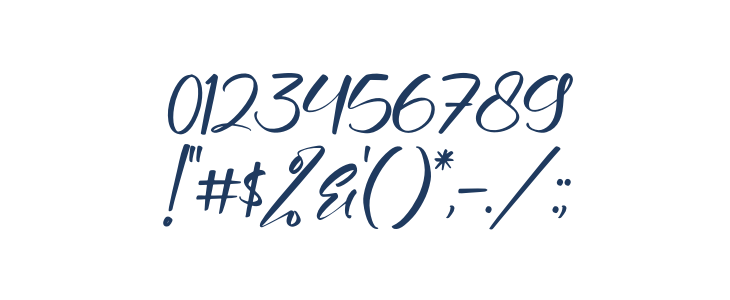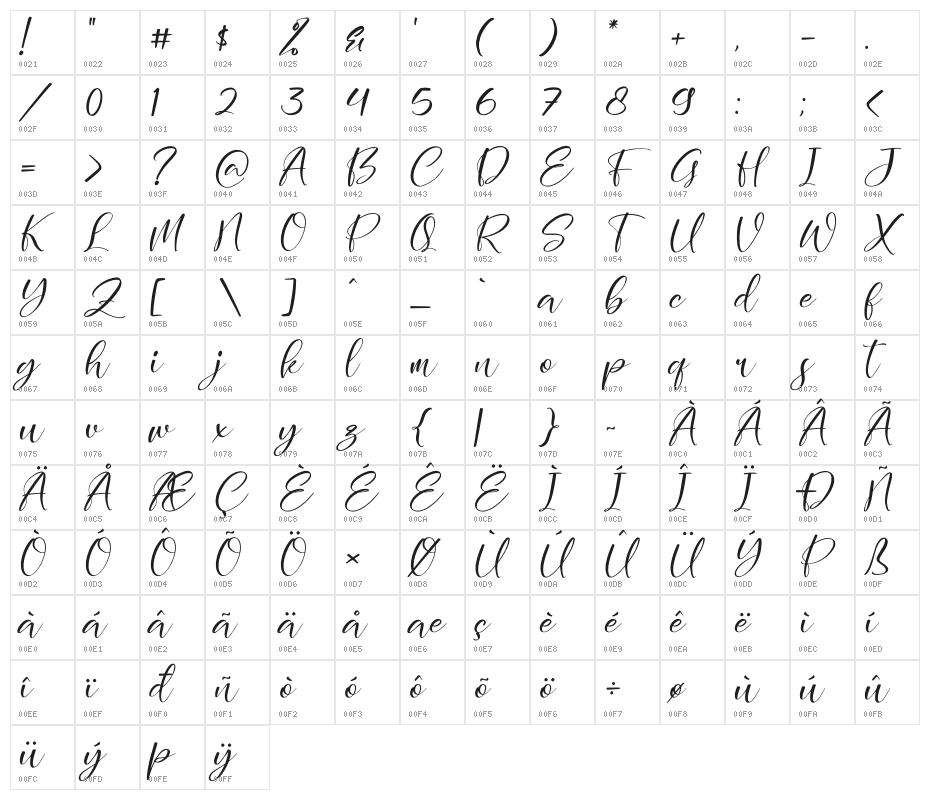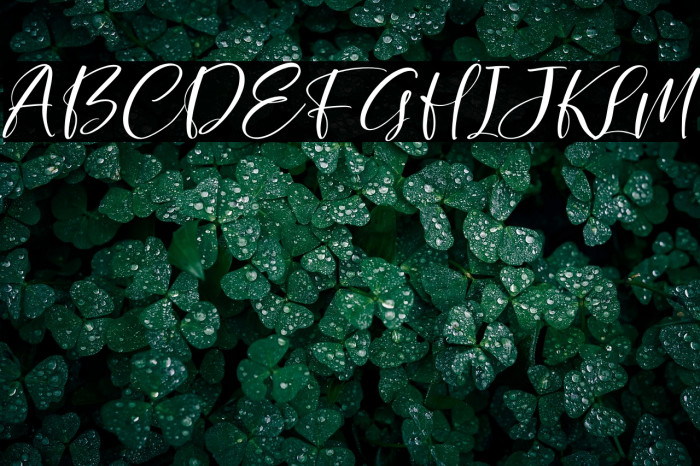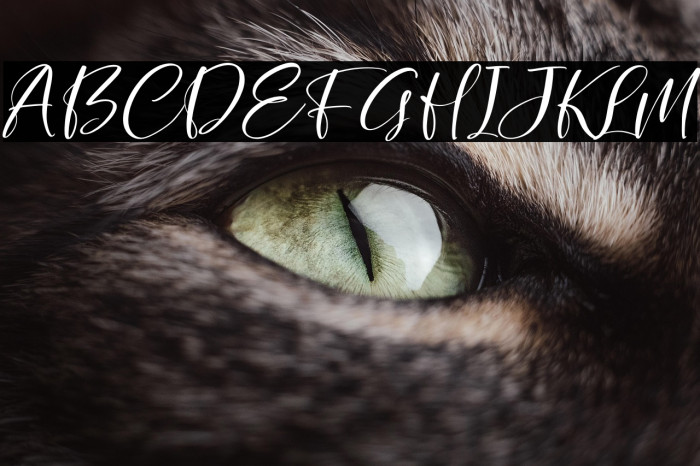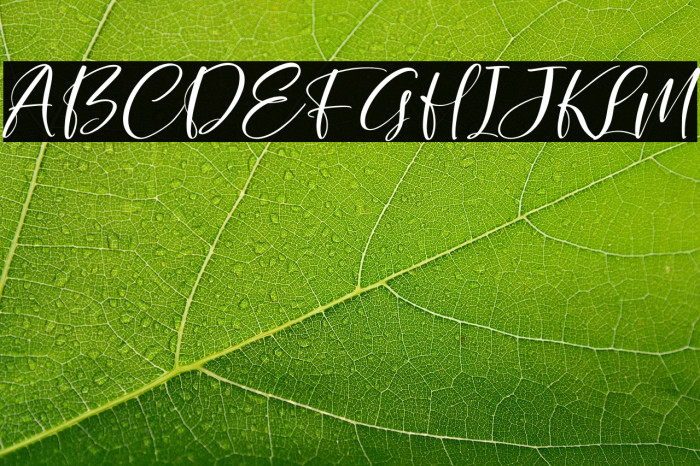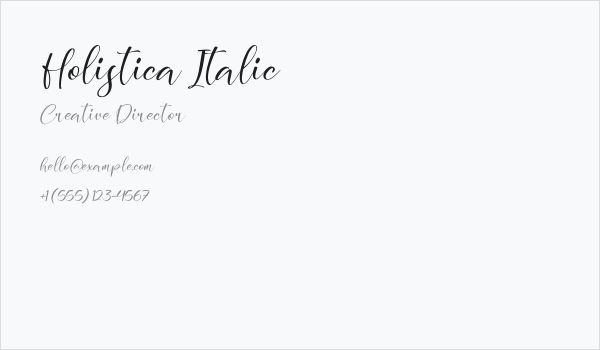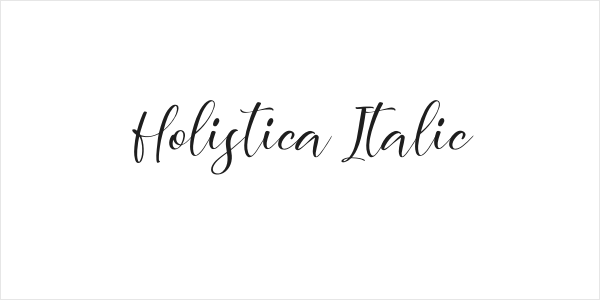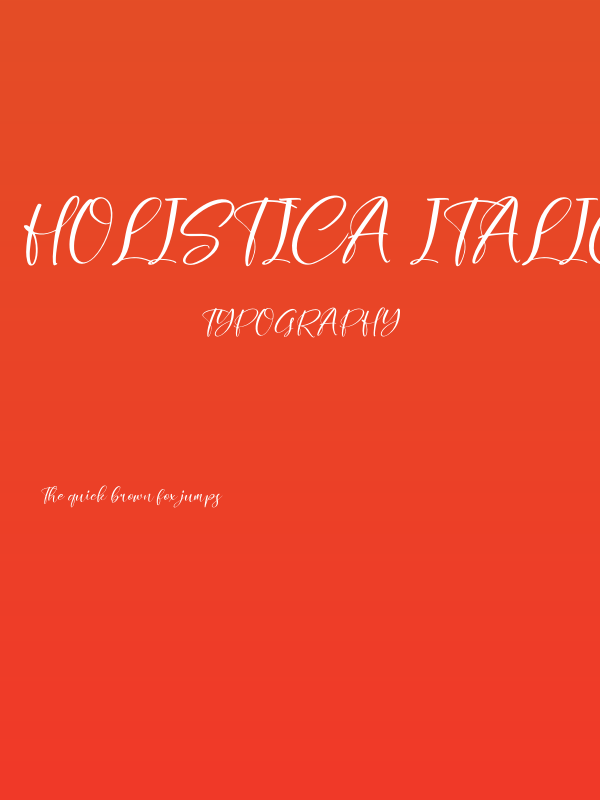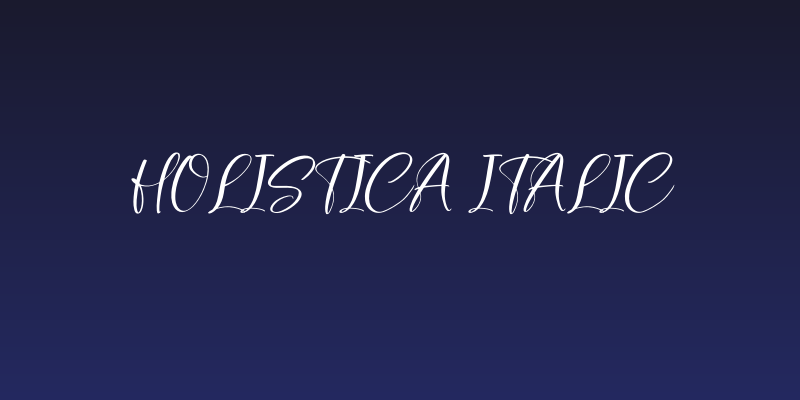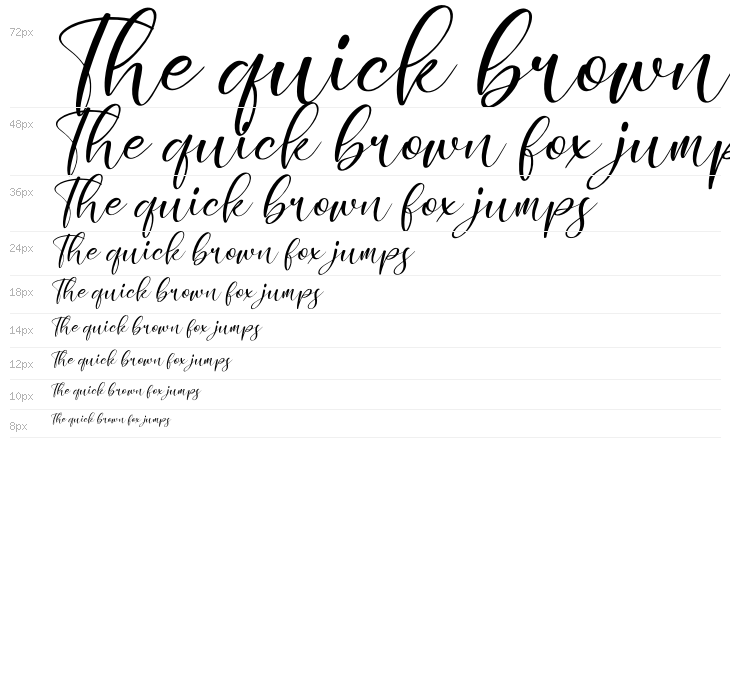
Holistica Italic Font
Holistica Italic Description
This font features a flowing, cursive style that exudes elegance and sophistication. The characters are connected in a fluid manner, reminiscent of traditional calligraphy, yet maintain a modern touch. The uppercase letters are slightly more elaborate, with sweeping curves and loops, while the lowercase letters are more restrained but still maintain a graceful appearance. The numerals and special characters are designed to match the overall aesthetic, ensuring consistency throughout. This font is ideal for projects that require a personal, handwritten feel, such as invitations, greeting cards, or branding materials.
Use CaseLogos, Headlines, Decorative text
Proposed ProjectsIdeal for wedding invitations, greeting cards, branding, and personal stationery.